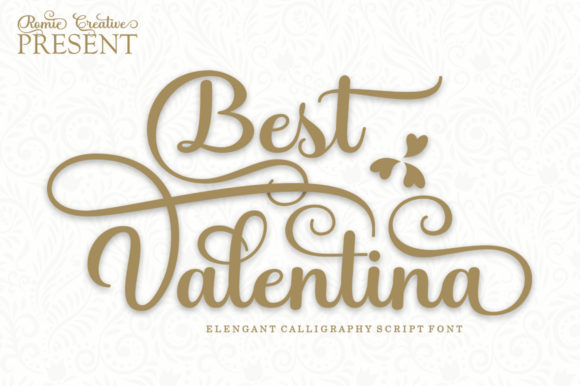
The Quest for the Perfect Font: Discovering Best Valentina
I’ll never forget the design project that led me to Best Valentina, an elegant script font that has since become a staple in my creative toolkit. I was working on a branding project for a luxury wedding planner, and I needed a font that exuded sophistication, elegance, and a touch of whimsy. After hours of scouring font libraries and testing various options, I stumbled upon Best Valentina. It was love at first sight! ✨
An Honest Review of Best Valentina
- ✨ Elegant yet contemporary: Best Valentina strikes the perfect balance between classic calligraphy and modern flair.
- ✅ Balanced and varied: The font’s weight and texture are meticulously crafted to add visual interest to any project.
- 💡 PUA encoded for ease: With PUA encoding, accessing glyphs and swashes is a breeze, making it easy to get creative.
While Best Valentina is an exceptional font, there are a few minor considerations to keep in mind:
- ⚠️ Occasional kerning adjustments: As with any script font, you may need to make manual kerning adjustments to ensure optimal spacing.
- 🤔 Limited use in very small sizes: While Best Valentina is versatile, it may not be the best choice for very small font sizes (e.g., 8-10pt). It’s ideal for headlines, titles, and body text in larger sizes.
The Story Behind Best Valentina
Best Valentina was crafted with love and attention to detail by a team of skilled typographers. Inspired by timeless classic calligraphy, they aimed to create a font that would bring elegance and sophistication to any project. With its impeccable form and balanced texture, Best Valentina is a testament to the power of thoughtful design.
Q: What is PUA encoding, and how does it benefit Best Valentina?
PUA (Private Use Area) encoding allows font creators to include additional glyphs and swashes that can be accessed easily. In Best Valentina’s case, PUA encoding makes it simple to use the font’s extensive range of stylistic alternates and glyphs.
Q: How does Best Valentina compare to other script fonts?
Best Valentina stands out for its elegant yet contemporary feel, balanced texture, and extensive range of glyphs and swashes. While similar fonts may share some of these qualities, Best Valentina’s unique blend of classic and modern elements makes it a versatile choice for a wide range of projects.